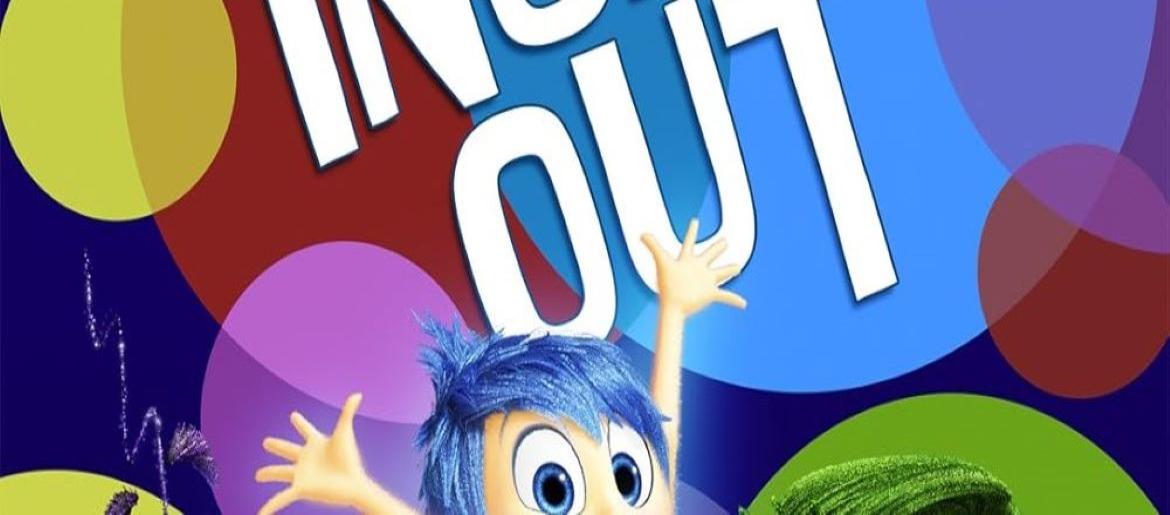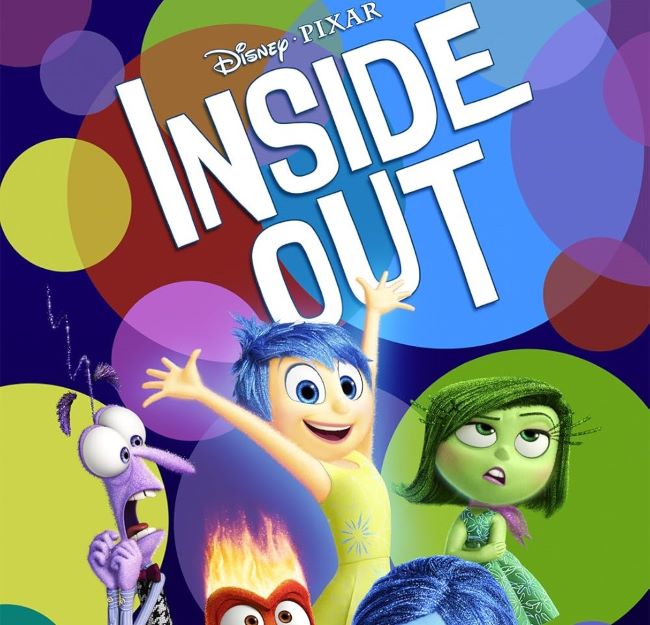
The Inside Out font is just as vibrant and expressive as the movie itself. Pixar’s Inside Out (2015) takes us on an emotional rollercoaster through the mind of a young girl, where Joy, Sadness, Anger, Fear, and Disgust come to life in dazzling colors. The typography used in the title reflects that energy—it’s bold, round, and fun, instantly pulling you into a world where feelings take center stage.
What makes the Inside Out font stand out is its cheerful design. The letters are playful without being messy, capturing the balance between imagination and clarity. It’s a font that works wonderfully for children’s projects, posters, or anything that needs a splash of positivity and color.
If you want to recreate the look of the Inside Out font, many designers recommend rounded sans-serif fonts that emphasize friendliness and joy. Fonts like Comic Sans Rounded, VAG Rounded, or Baloo can help achieve that Pixar-inspired style, while still being versatile enough for modern designs.
The Inside Out font is more than just a typeface—it’s an invitation into a story about emotions, empathy, and the colorful chaos of growing up.